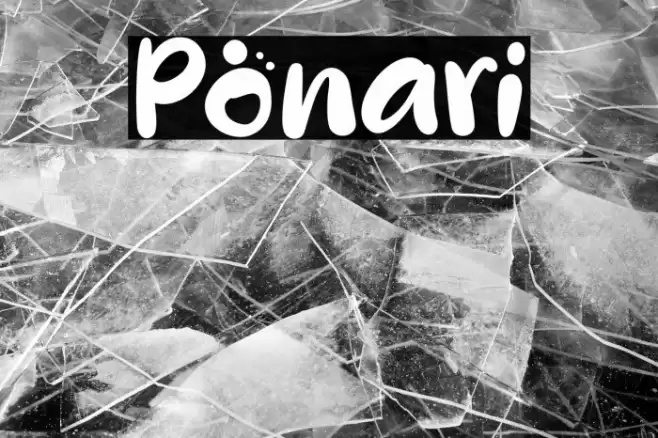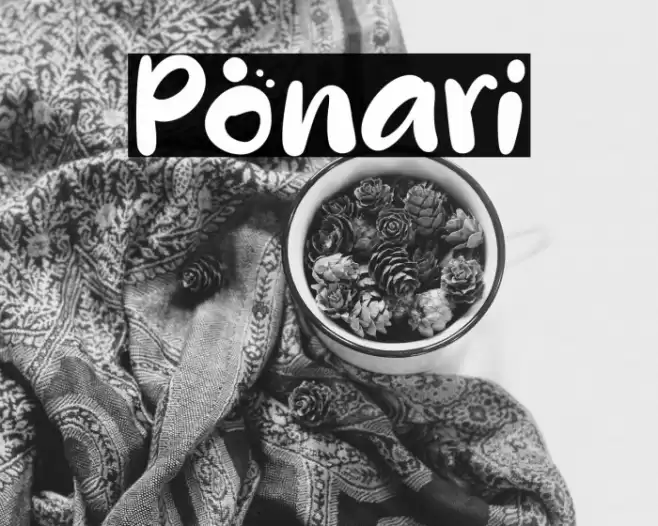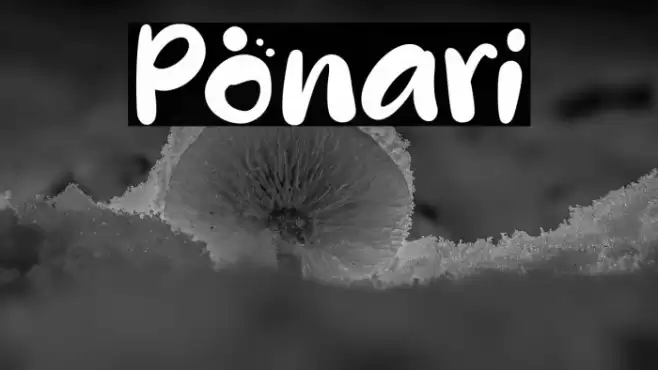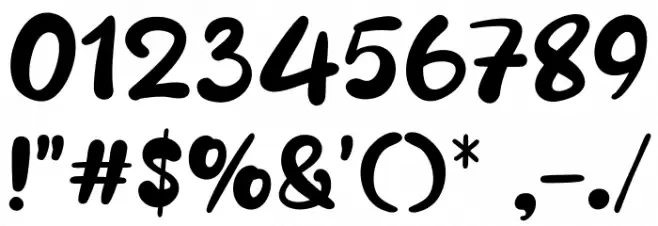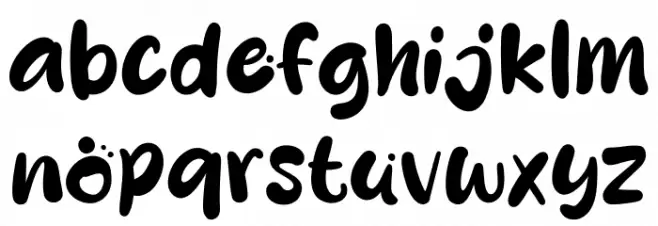
Ponari Font
Ponari Description
This playful and energetic font features bold, rounded characters with a hand-drawn appearance. The letters are slightly slanted, giving a dynamic and informal feel. The uppercase and lowercase letters maintain a consistent style, with smooth curves and a friendly demeanor. The numbers and special characters are equally expressive, complementing the overall whimsical style. This font is versatile, suitable for projects that require a personal touch or a lively, engaging look.
A bold, playful font with a hand-drawn, dynamic style from Uncategorized fonts.
- Proposed Projects: Ideal for children's books, greeting cards, playful branding, and social media graphics.
- Overall Style: Playful